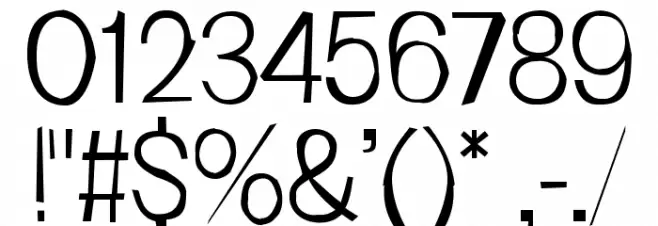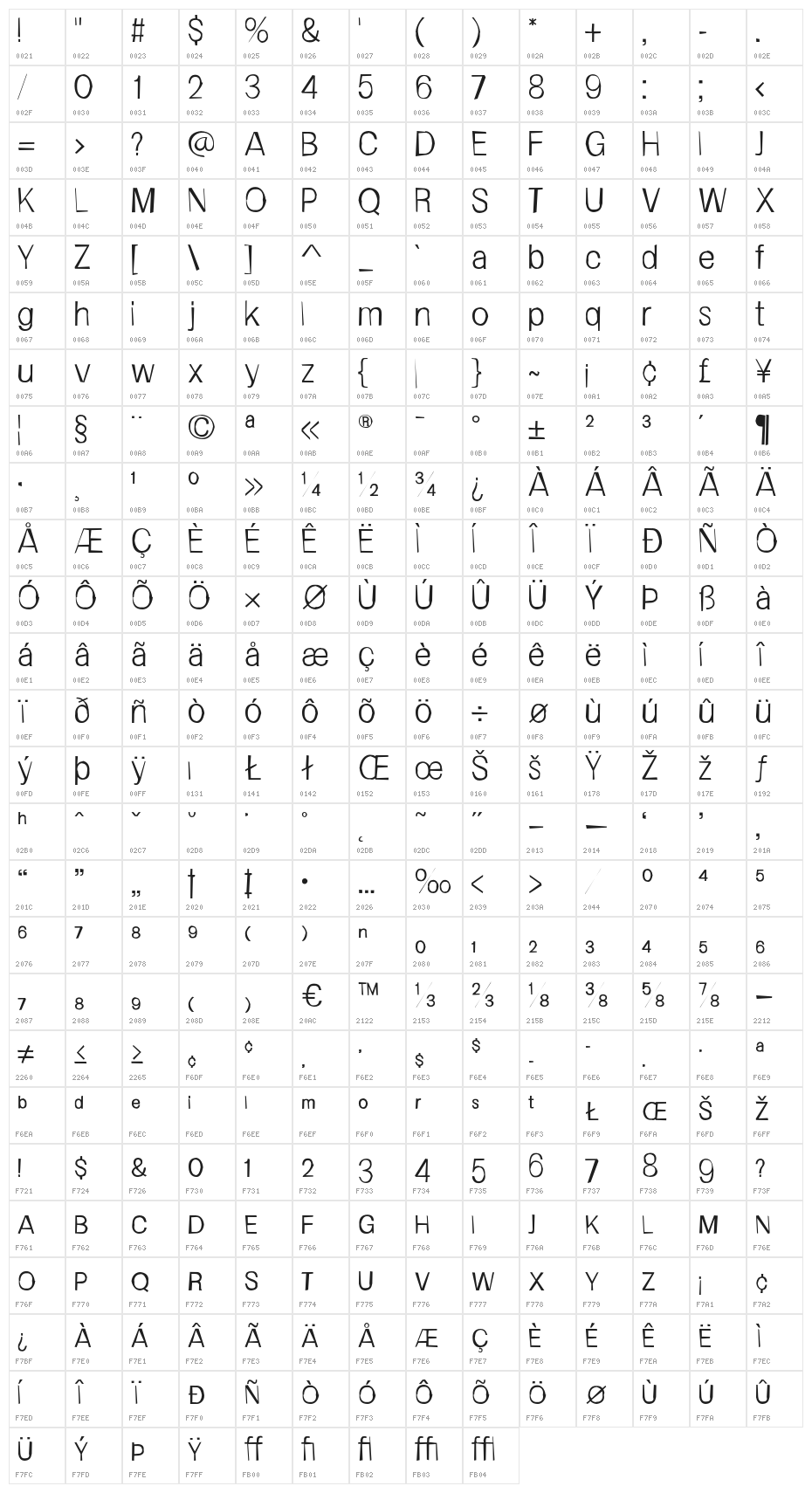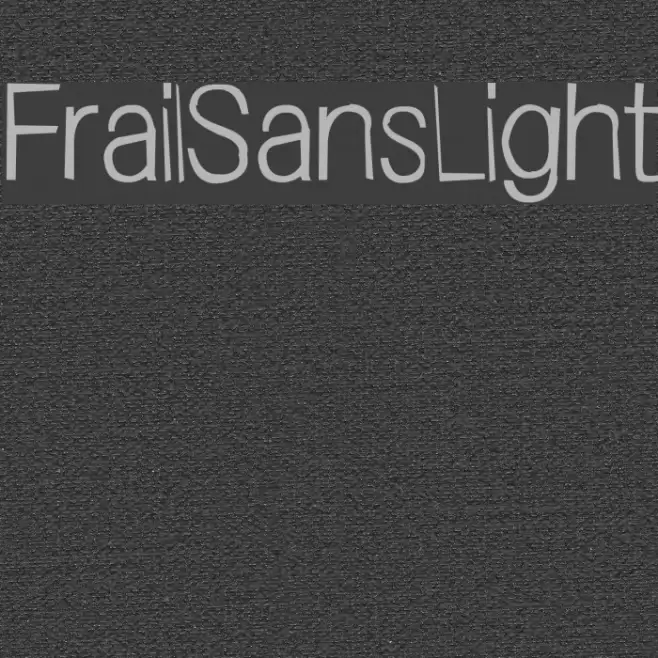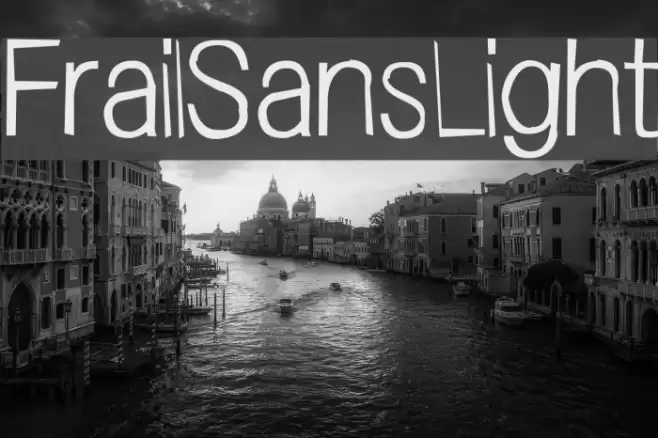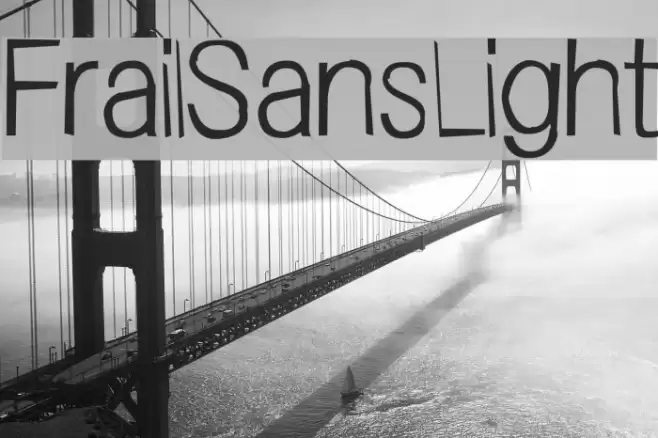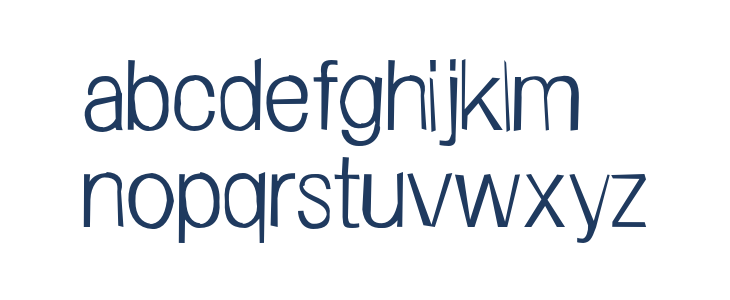
FrailSansLight Font
FrailSansLight Description
This font features a modern and sleek design with a distinctively thin and elongated appearance. The characters are slightly condensed, giving it a sophisticated and contemporary look. The uppercase letters are tall and narrow, while the lowercase letters maintain a consistent height, creating a harmonious balance. The numerals are clear and legible, complementing the overall style. Special characters are designed with the same thin strokes, ensuring uniformity across all glyphs. This font's minimalistic approach makes it versatile for various design applications.
| Proposed Projects | Ideal for branding, editorial design, and modern web interfaces where a clean and sophisticated look is desired. |